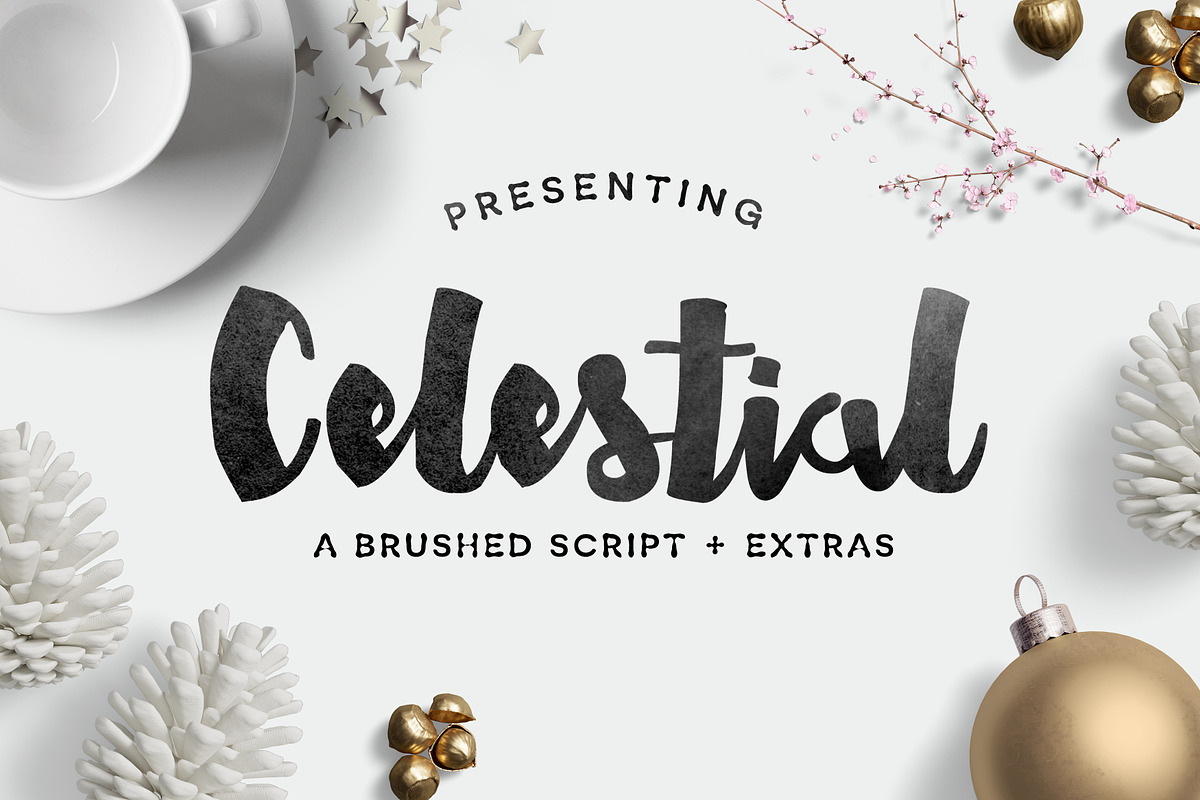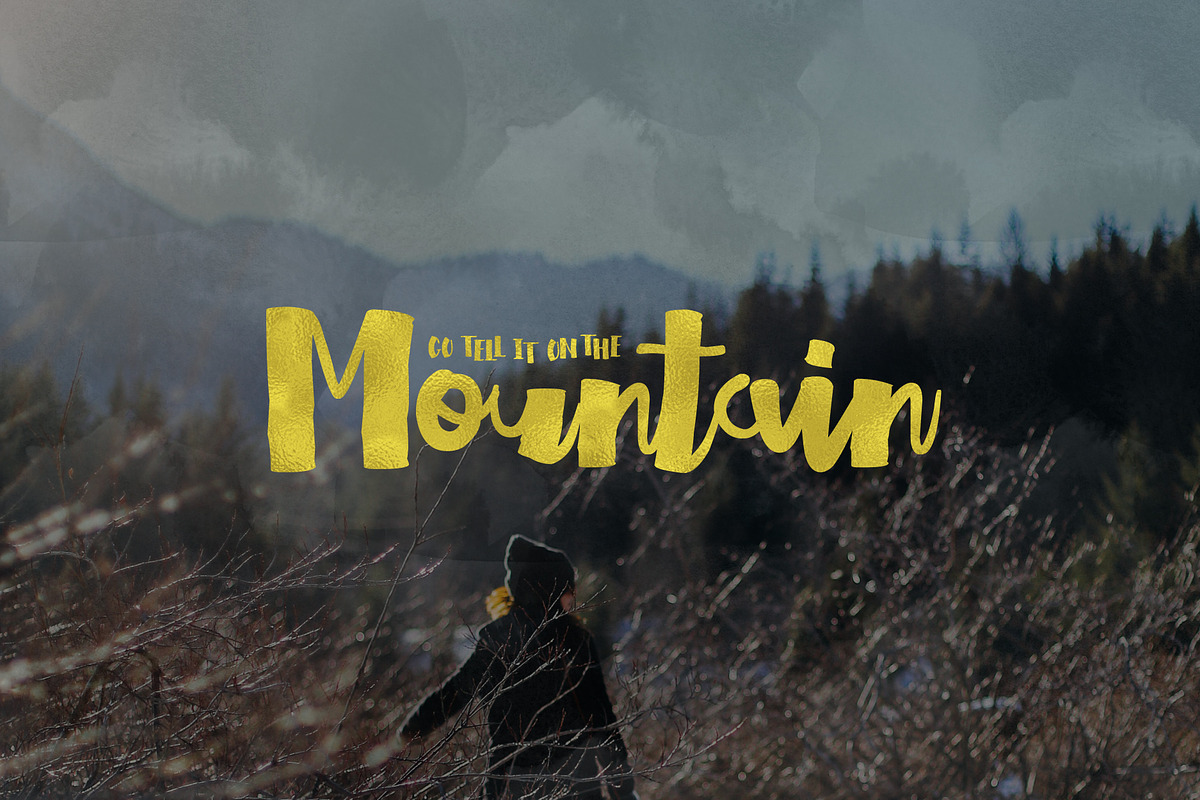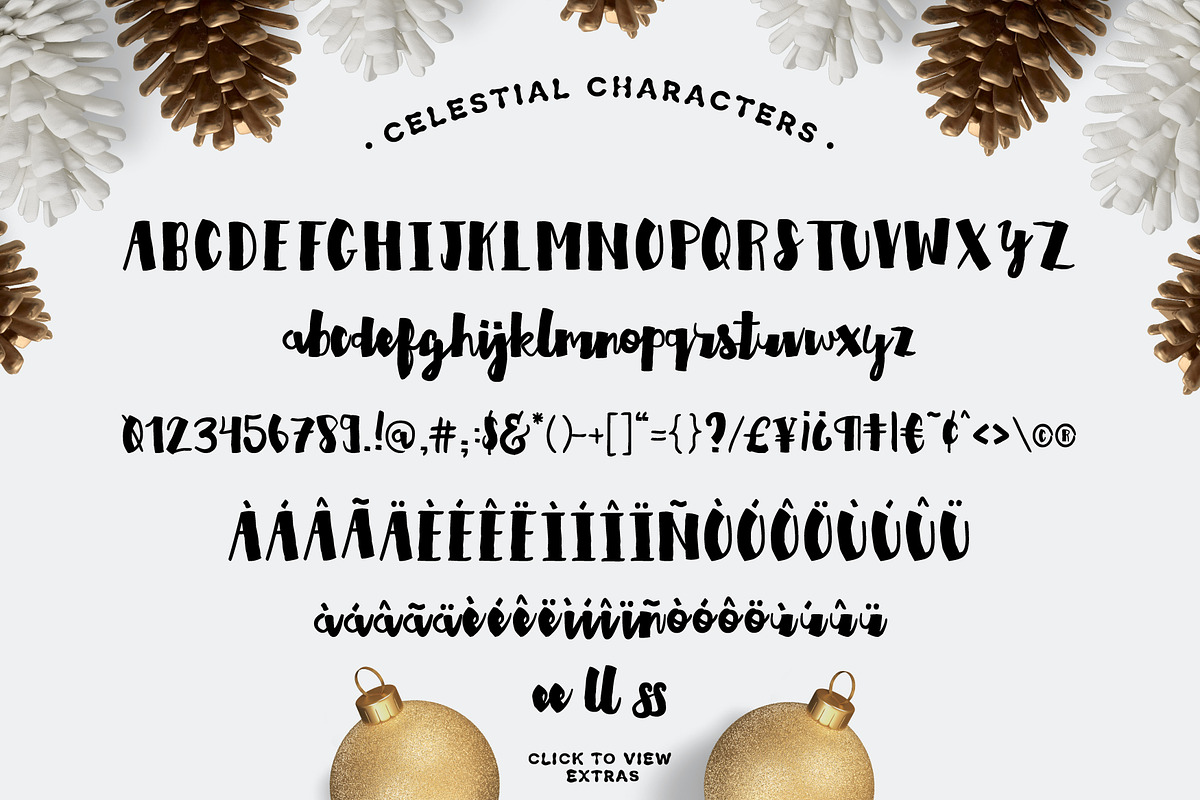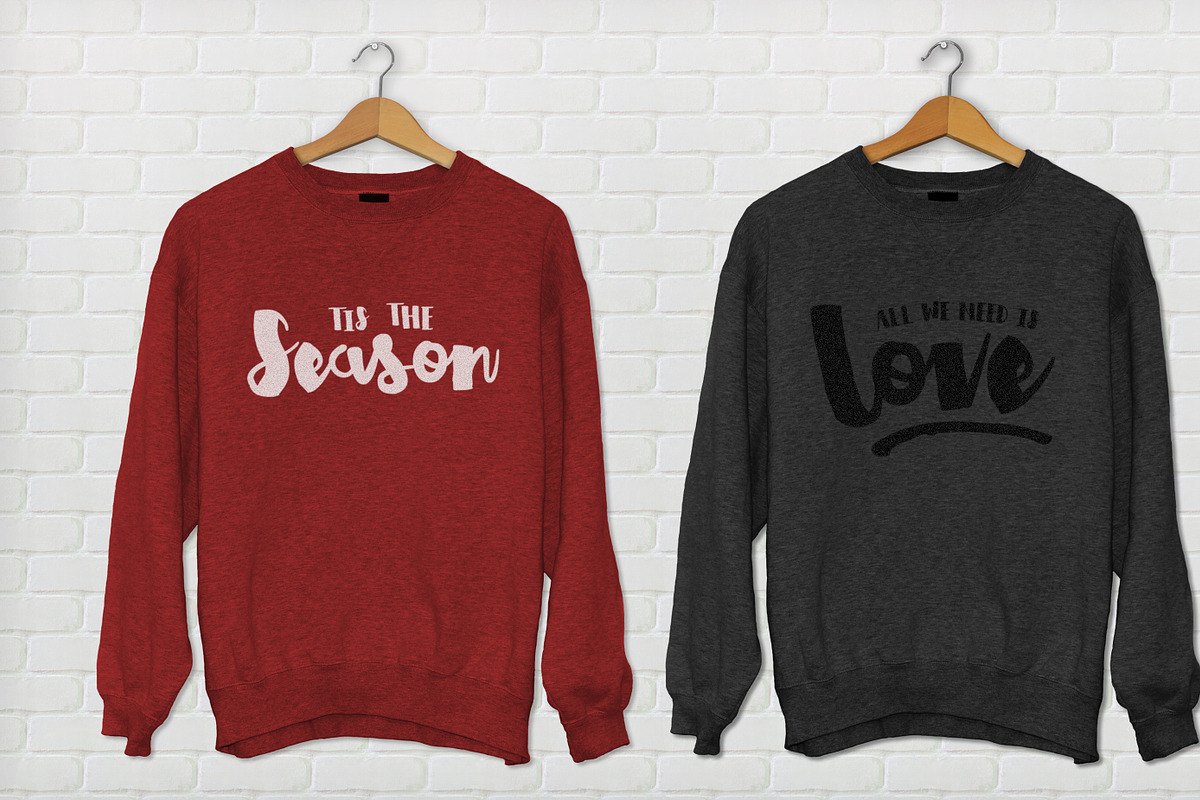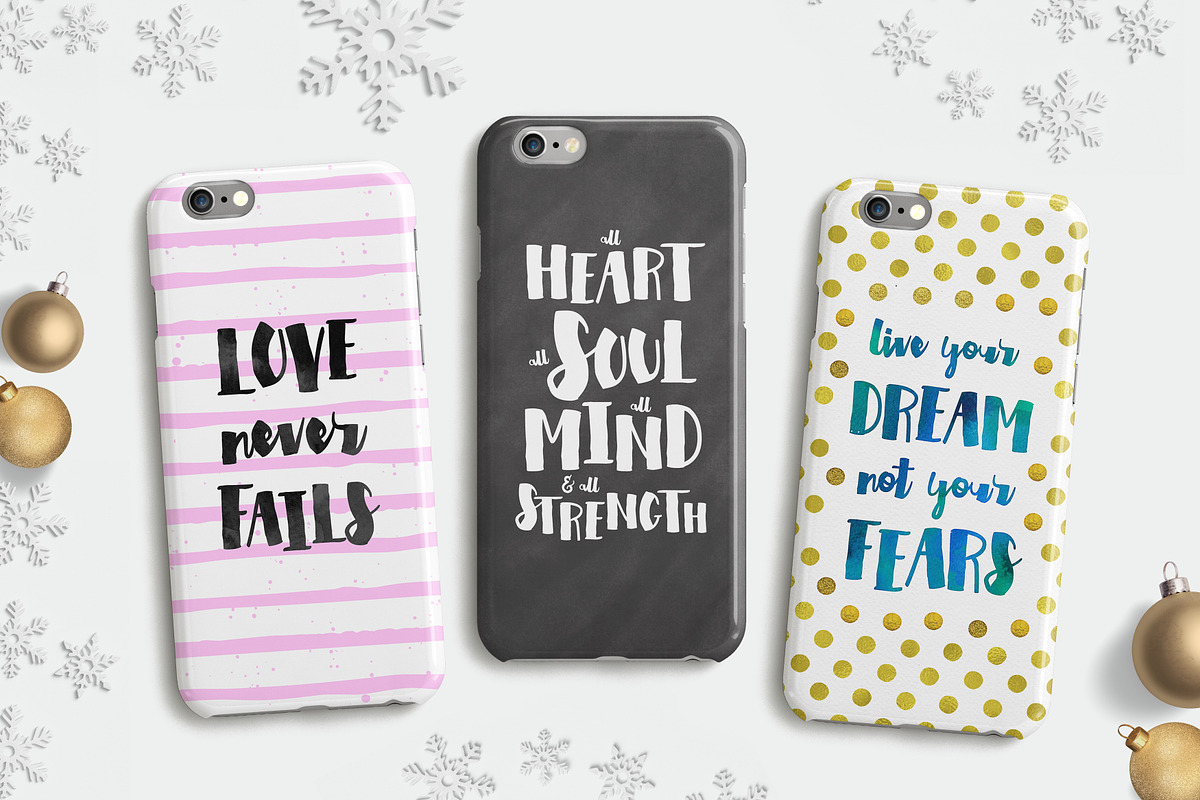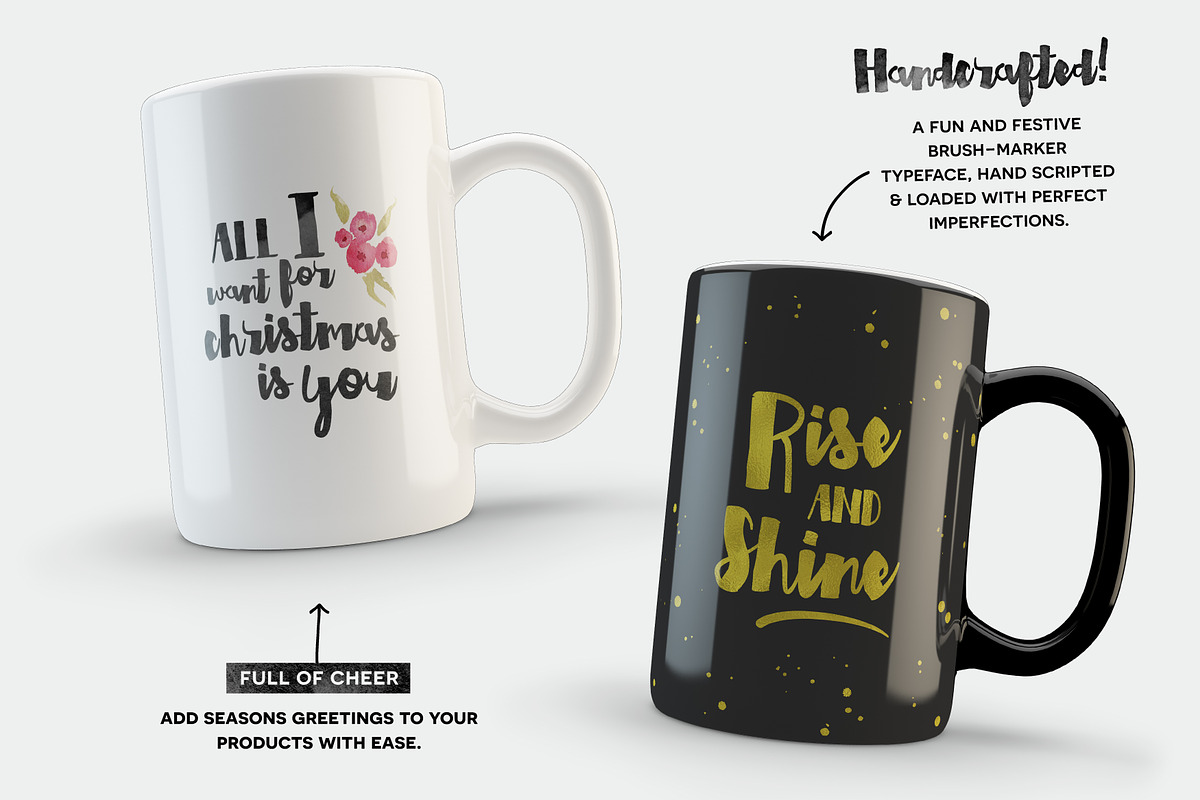
Celestial Script + Extras
ABOUT CELESTIAL :::::::::::::::::::::::::::::::::::::::::::::::::::::::::::::::::::::::::::::
Celestial is a fun & festive script font with some rad bonuses! It’s chunky brush strokes and imperfect baseline give it a stylish aesthetic perfect for holiday packaging, cards, typography, branding, logo design, invitations, and prints.
Use it in ink, watercolor, or gold foil based designs or on its own as a bold hand-brushed masterpiece!
THE EXTRAS::::::::::::::::::::::::::::::::::::::::::::::::::::::::::::::::::::::::::::::::::::::::::
Wanting to make sure you had everything you needed to make your project complete with that handcrafted feel, I’ve included:
• Tons of Bonus Glyphs